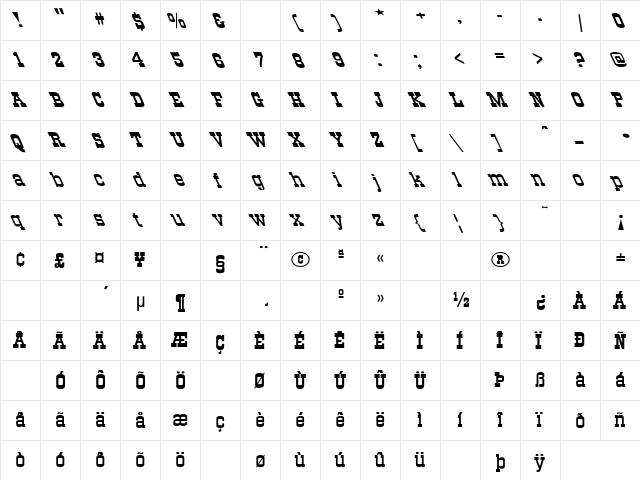
Old-Town Ex Lefti Regular
Design Context for Old-Town Ex Lefti Typeface
Old-Town Ex Lefti is a composed and adaptable typeface that performs quietly and consistently across a wide range of design contexts.